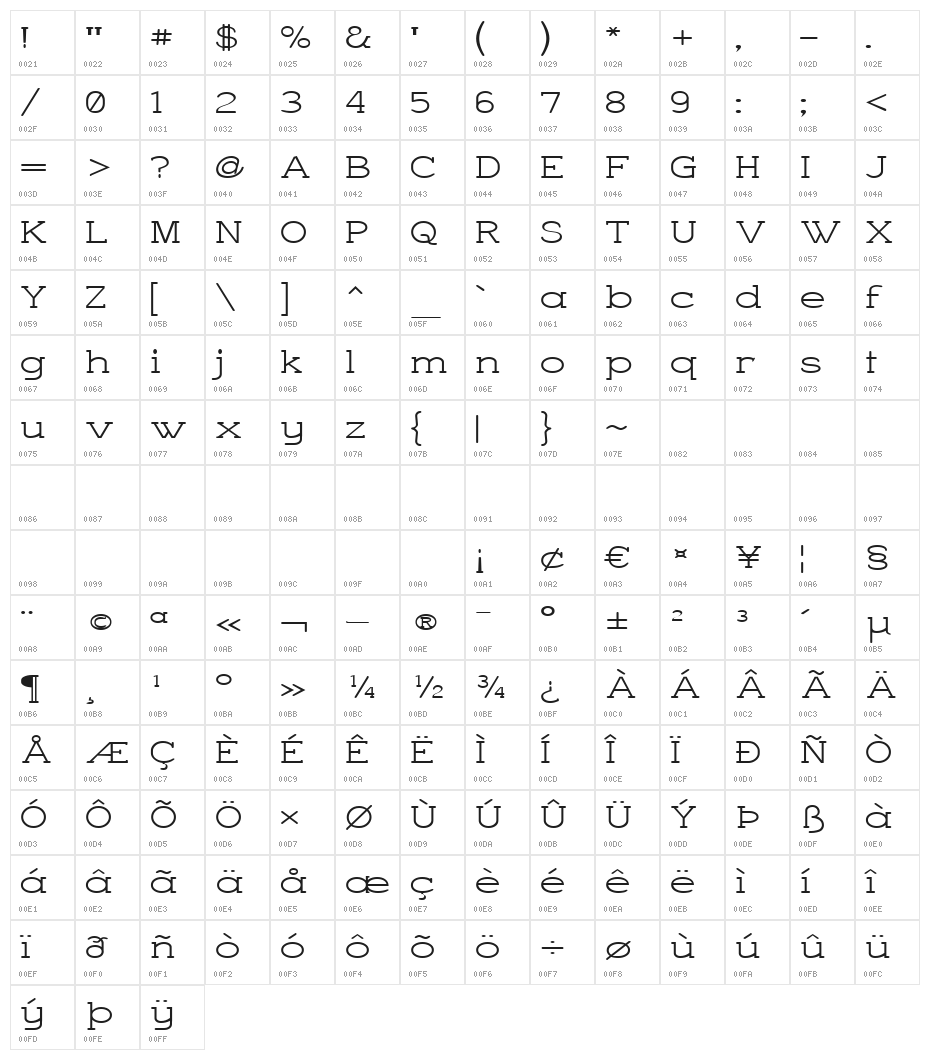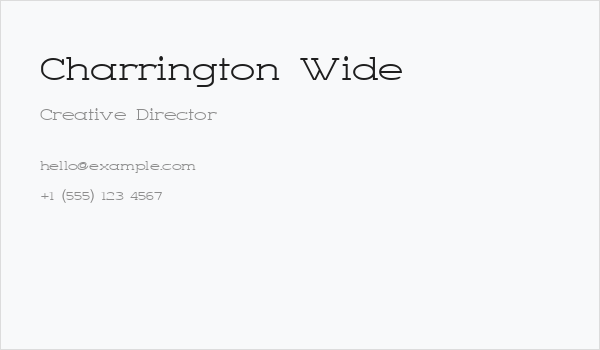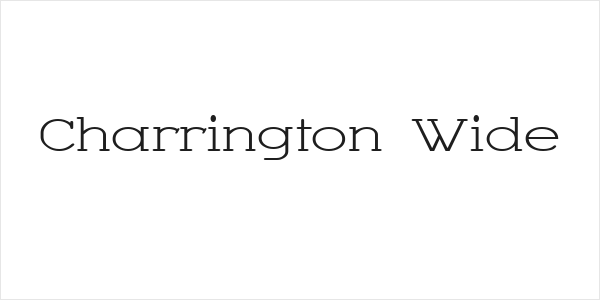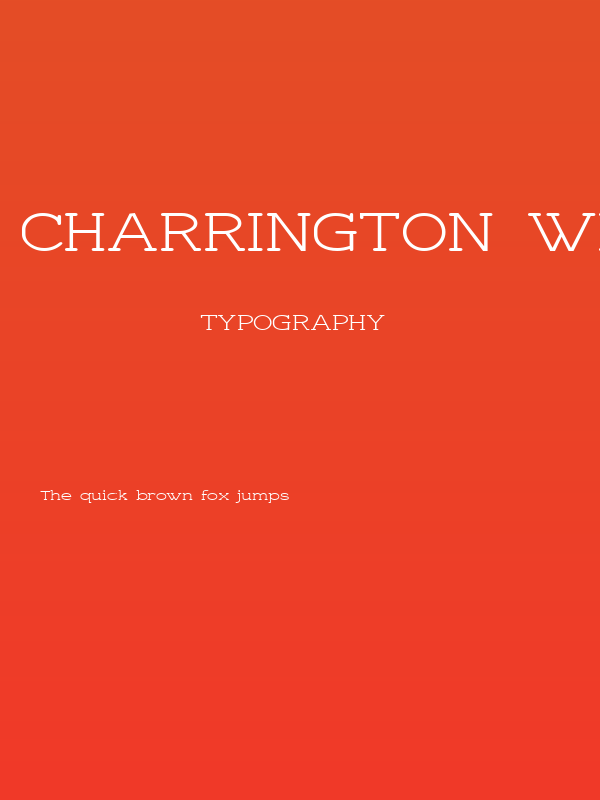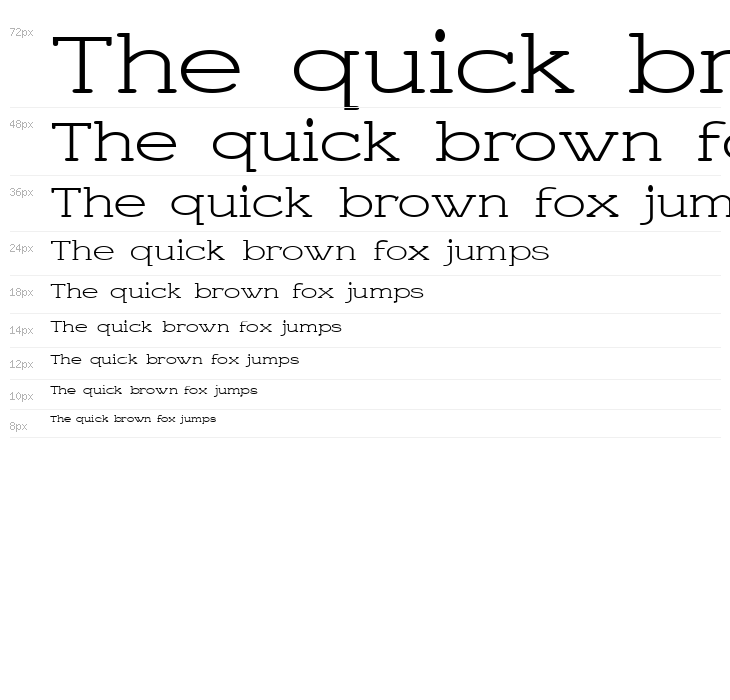
Charrington Wide Font
Charrington Wide Description
This font features a clean and modern design with a wide stance, giving it a distinctive and airy appearance. The characters are uniformly structured with consistent stroke widths, providing a harmonious and balanced look. The uppercase letters are bold and commanding, while the lowercase letters maintain a friendly and approachable feel. The numerals are clear and easy to read, making them suitable for various applications. Special characters are well-integrated, maintaining the overall aesthetic of the font. The design is versatile, making it suitable for both digital and print media.
Use CaseHeadlines, Logos, Branding
Proposed ProjectsIdeal for branding, advertising, headlines, and editorial design.